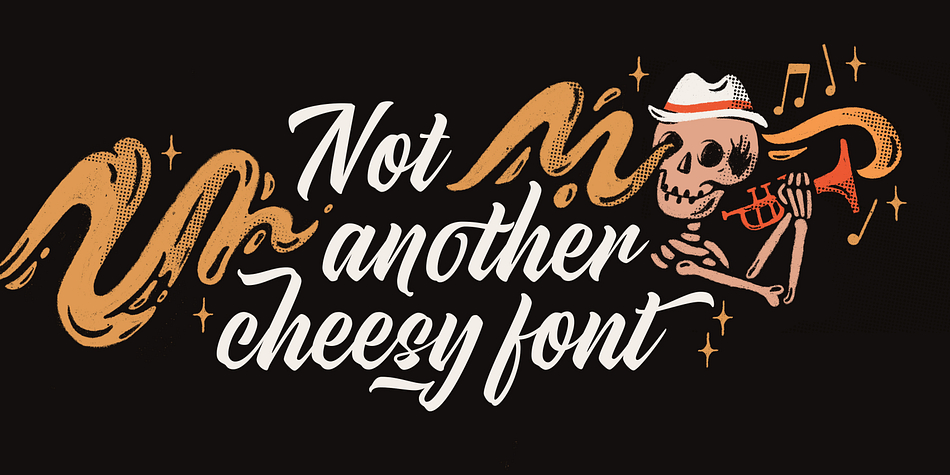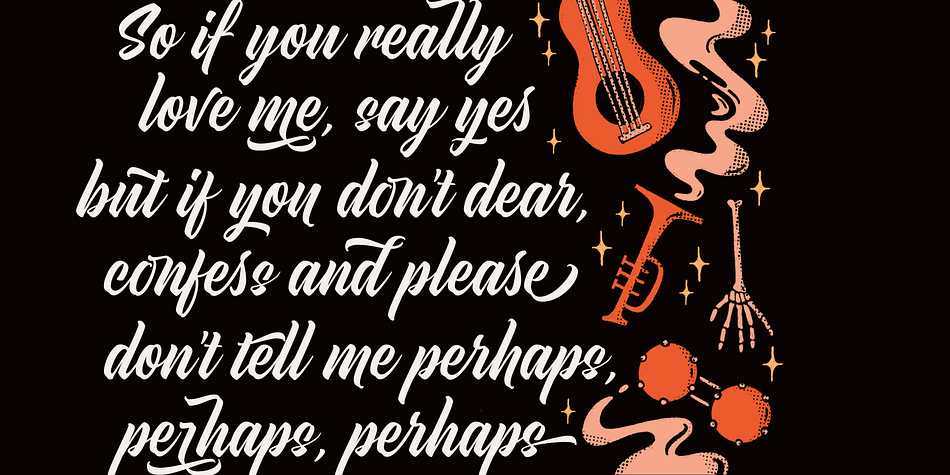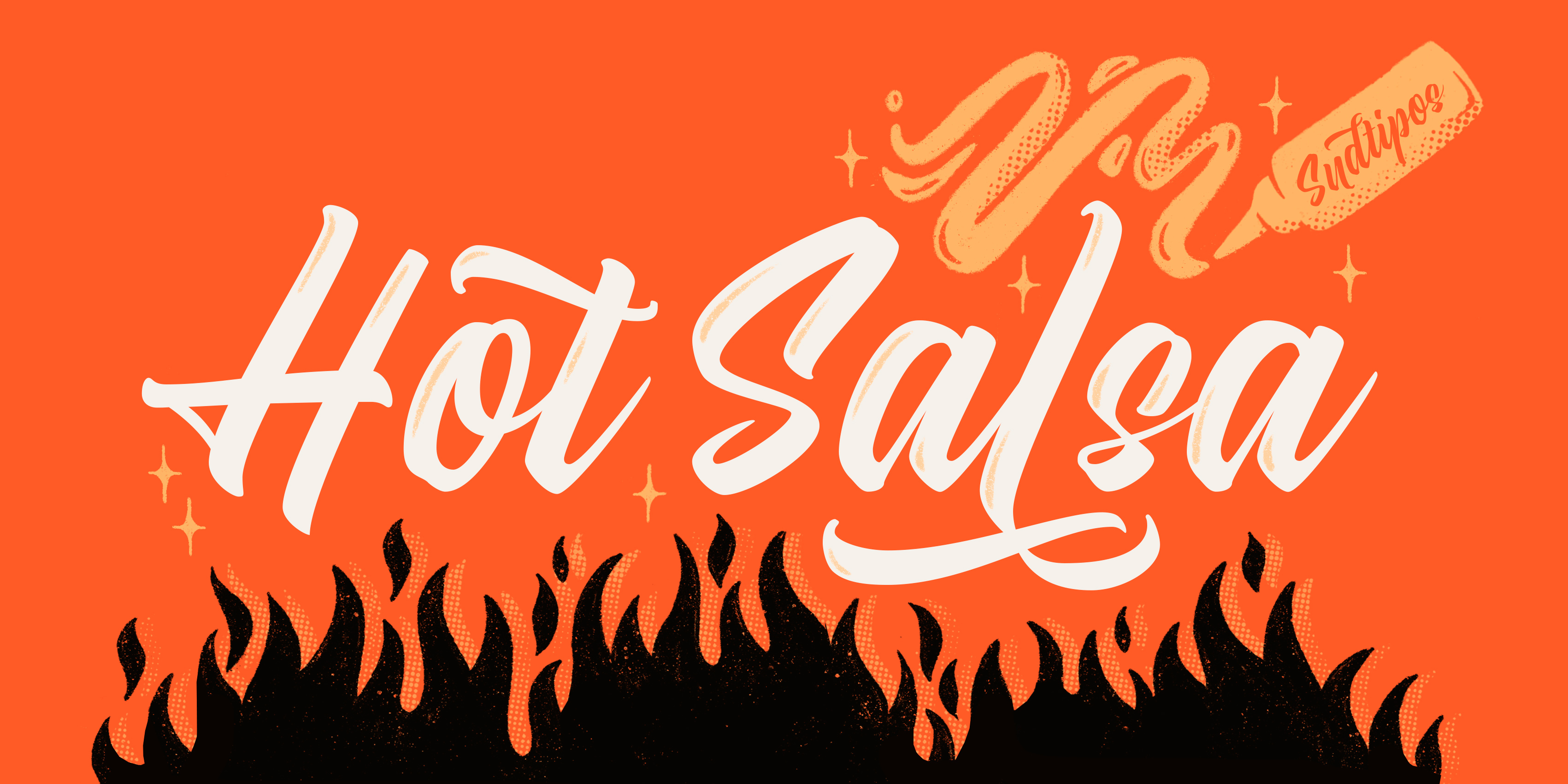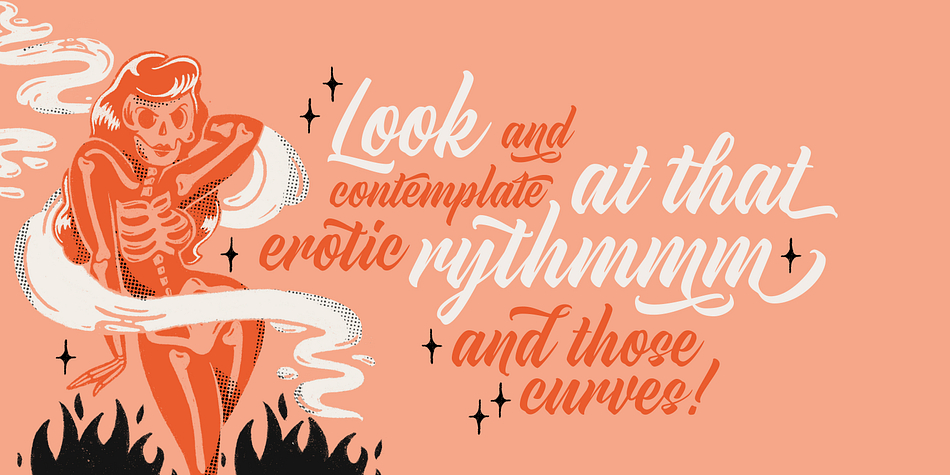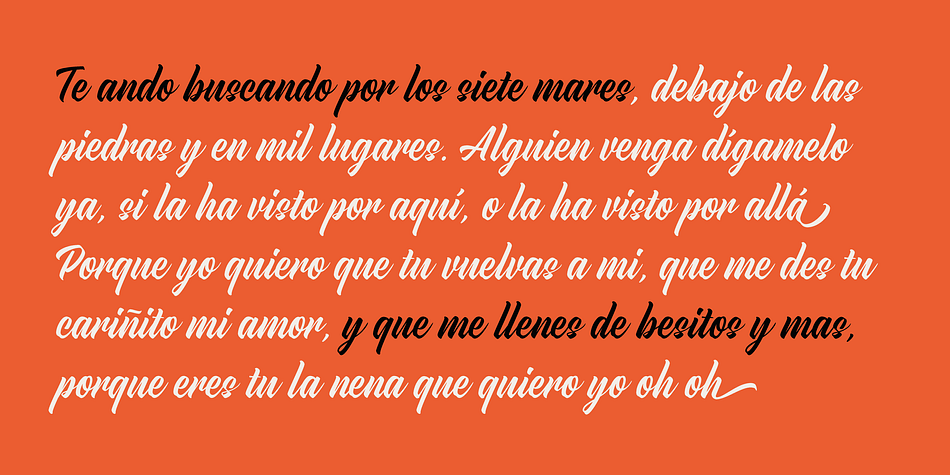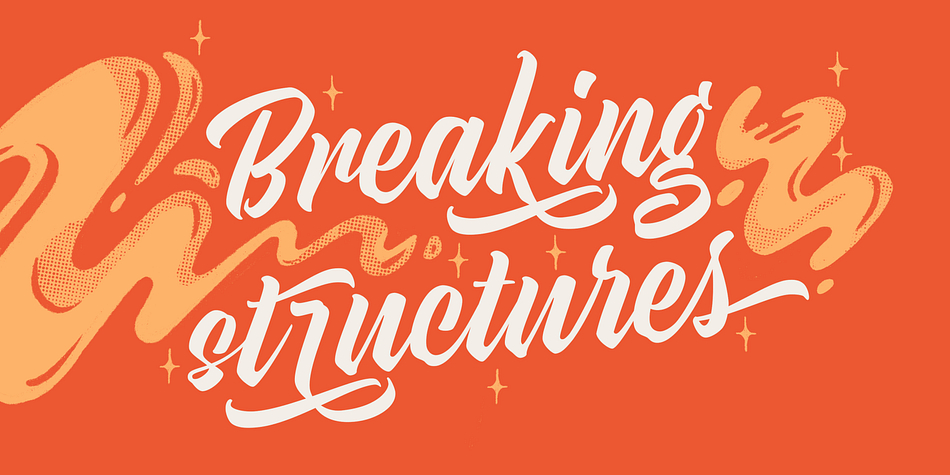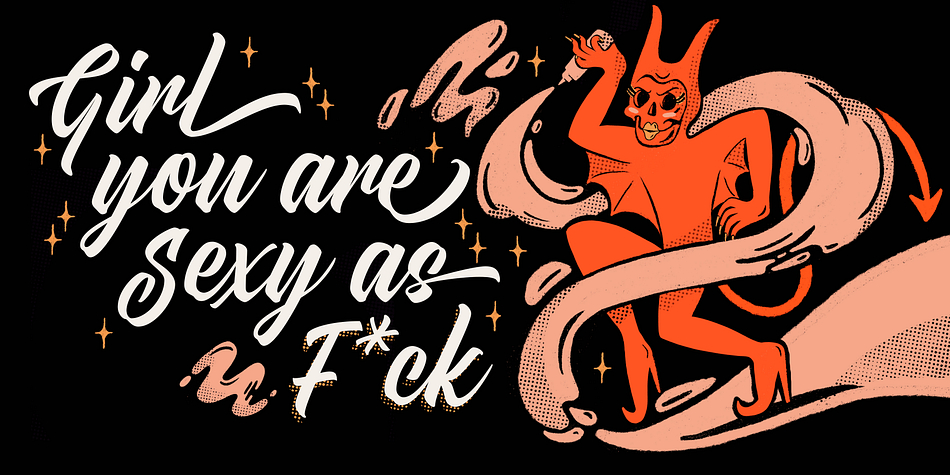
Designed by Alejandro Paul and Ximena Jiménez, Hot Salsa is a brush script font published by Sudtipos.
Hot Salsa is a calligraphic script font inspired by the classic, fairly well-made brush letters from the casual sign painting style, mixed with the fast and gestural tags you can find on walls all around the world.
This is a fresh font that allows you to play with its numerous swashes, alternates and ligatures to make it feel more sober or a little flirty depending on your needs.
Hot Salsa started with a brush pen and a lot of paper. These were later re-traced onto many layers of tracing paper with the intention of maintaining the brush pen and handmade feeling while making the structure consistent to ensure its readability and performance.